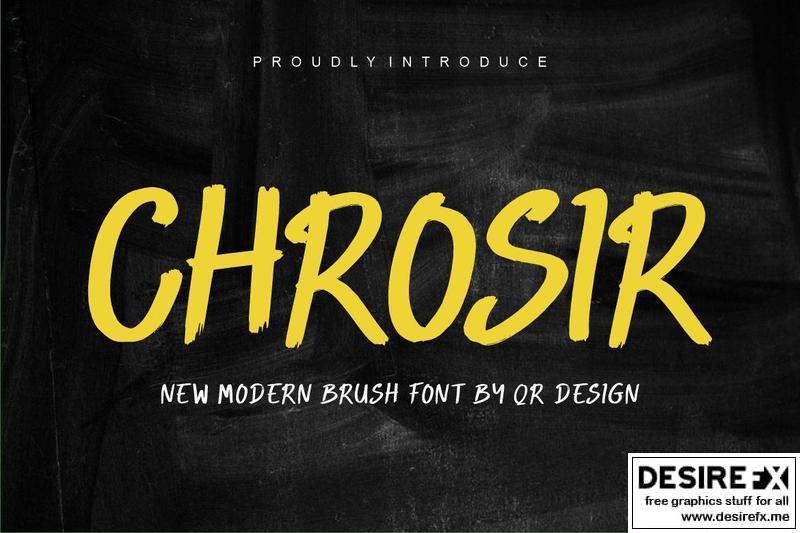
Chrosir Font KA9TN28
Chrosir Font is a bold and authentic display font.
The font is suitable for any branding project like logo, t-shirt printing, e-sport, and many more.
Outstanding in a wide range of contexts.